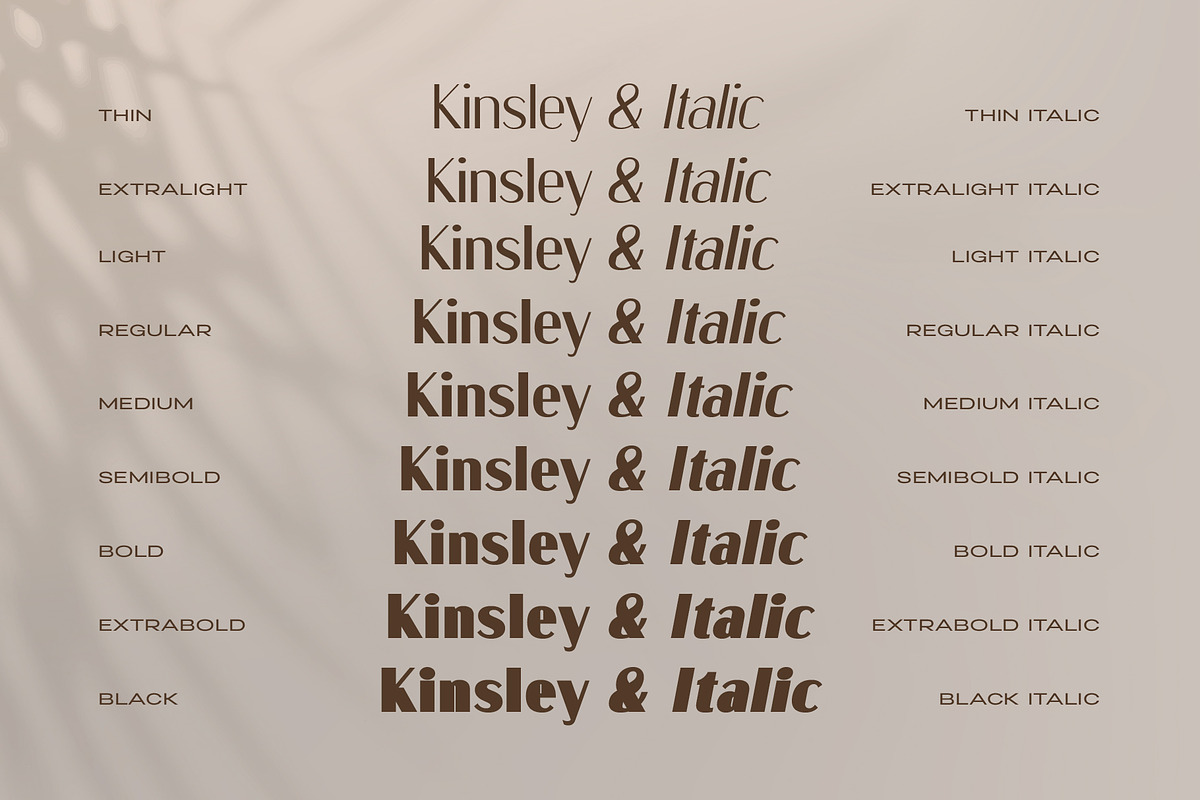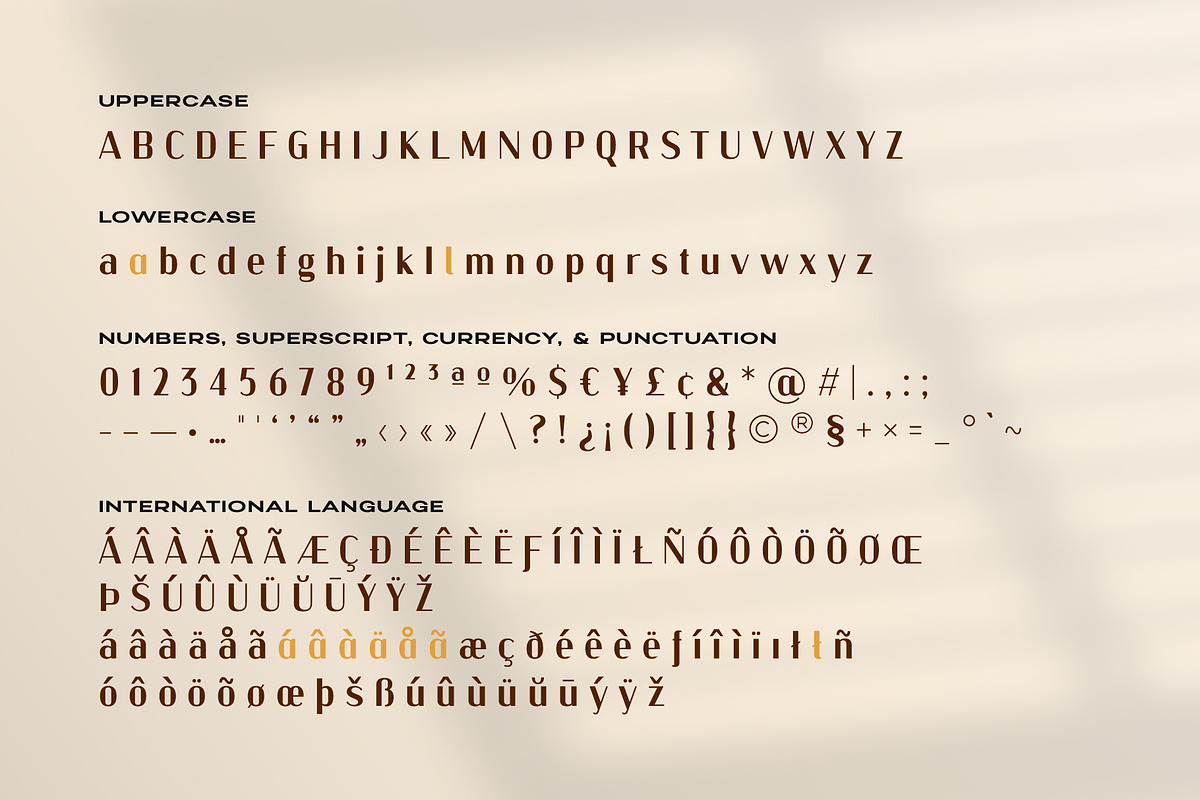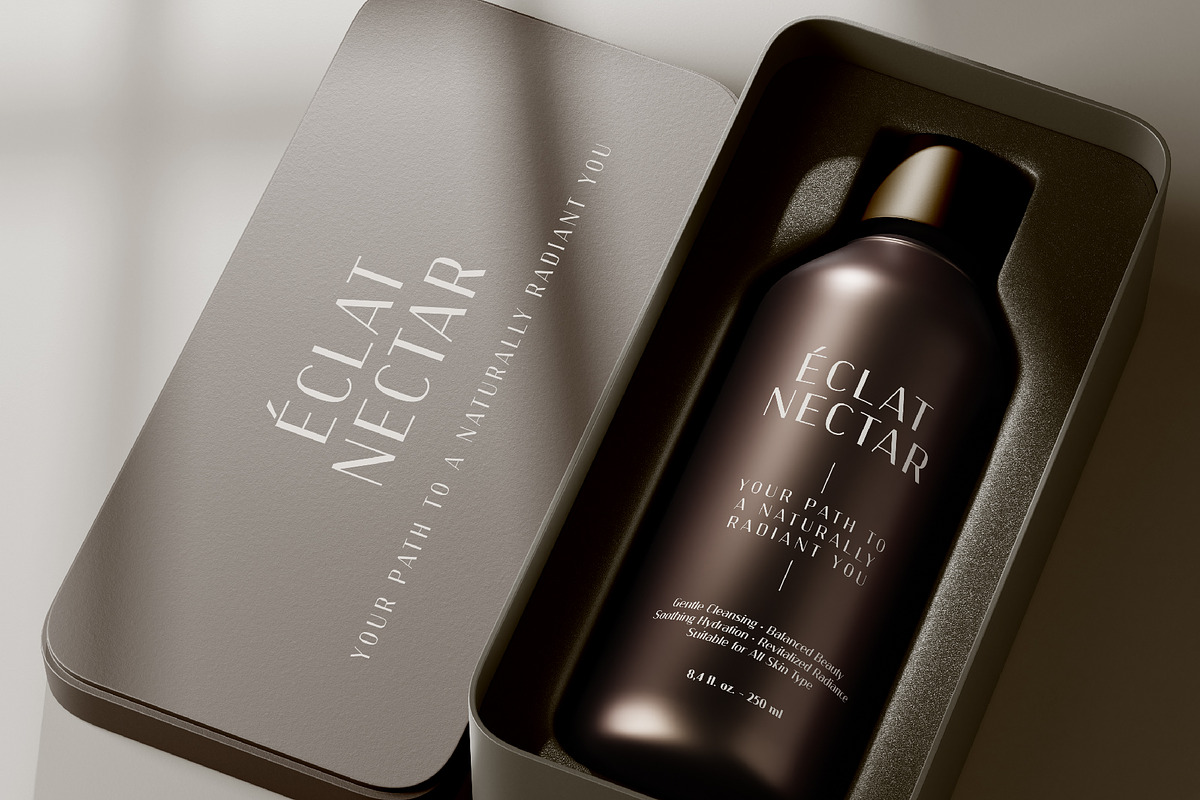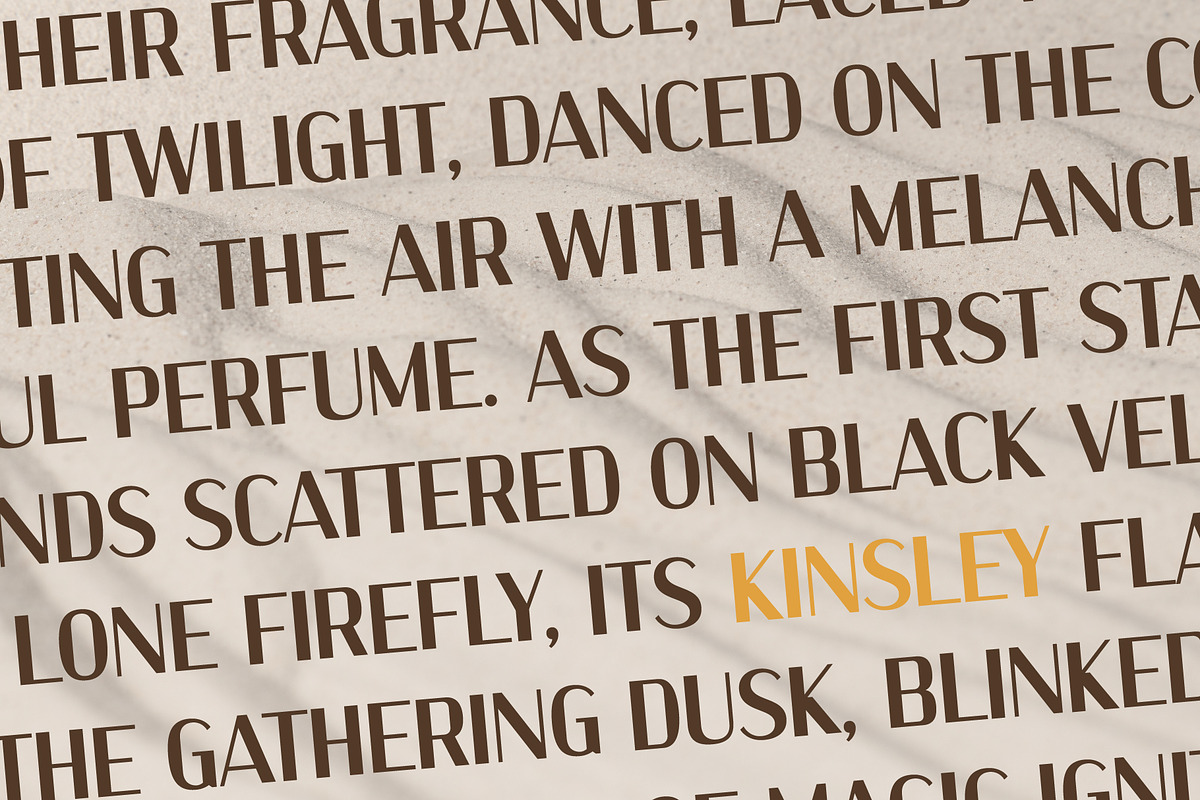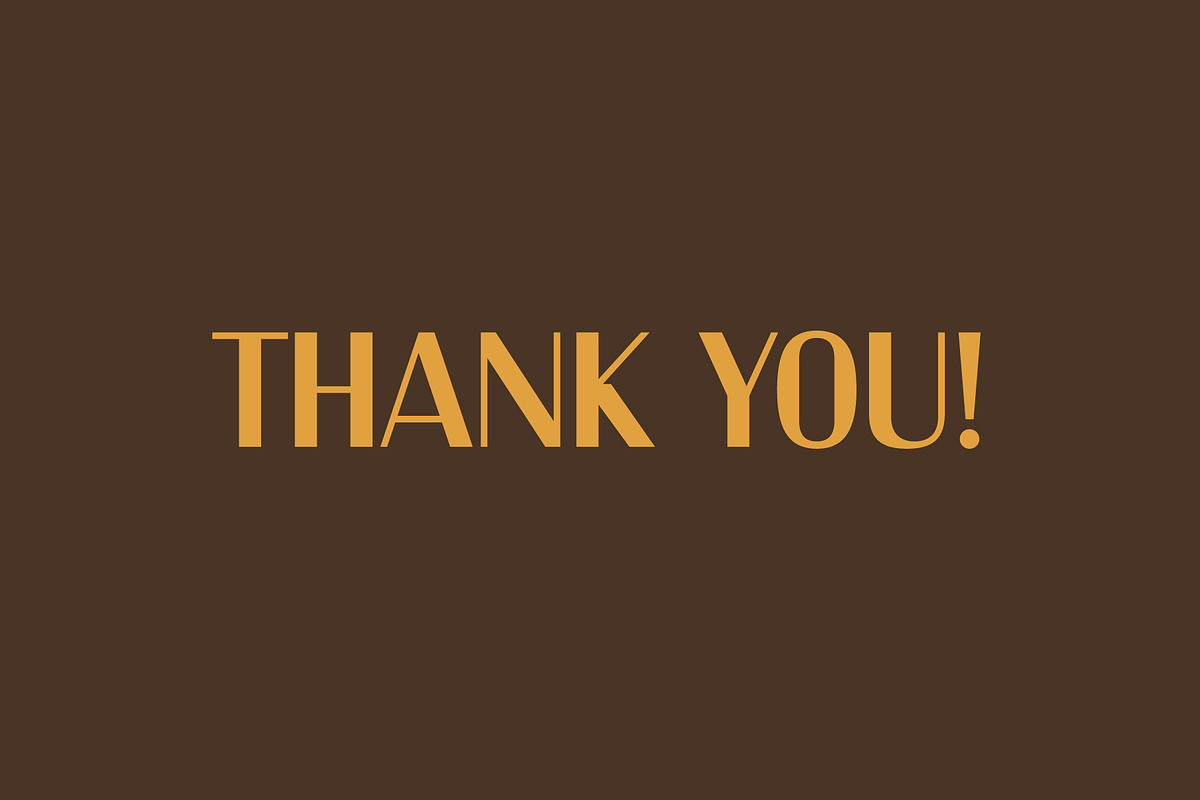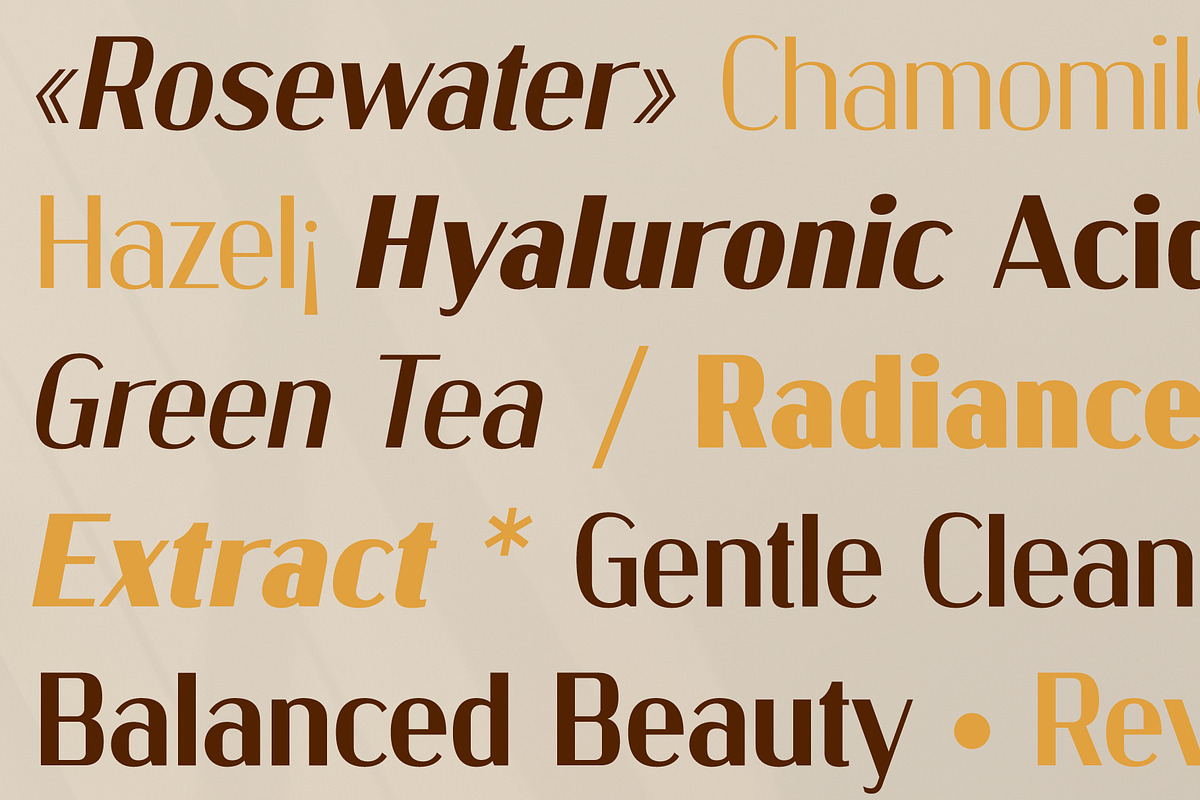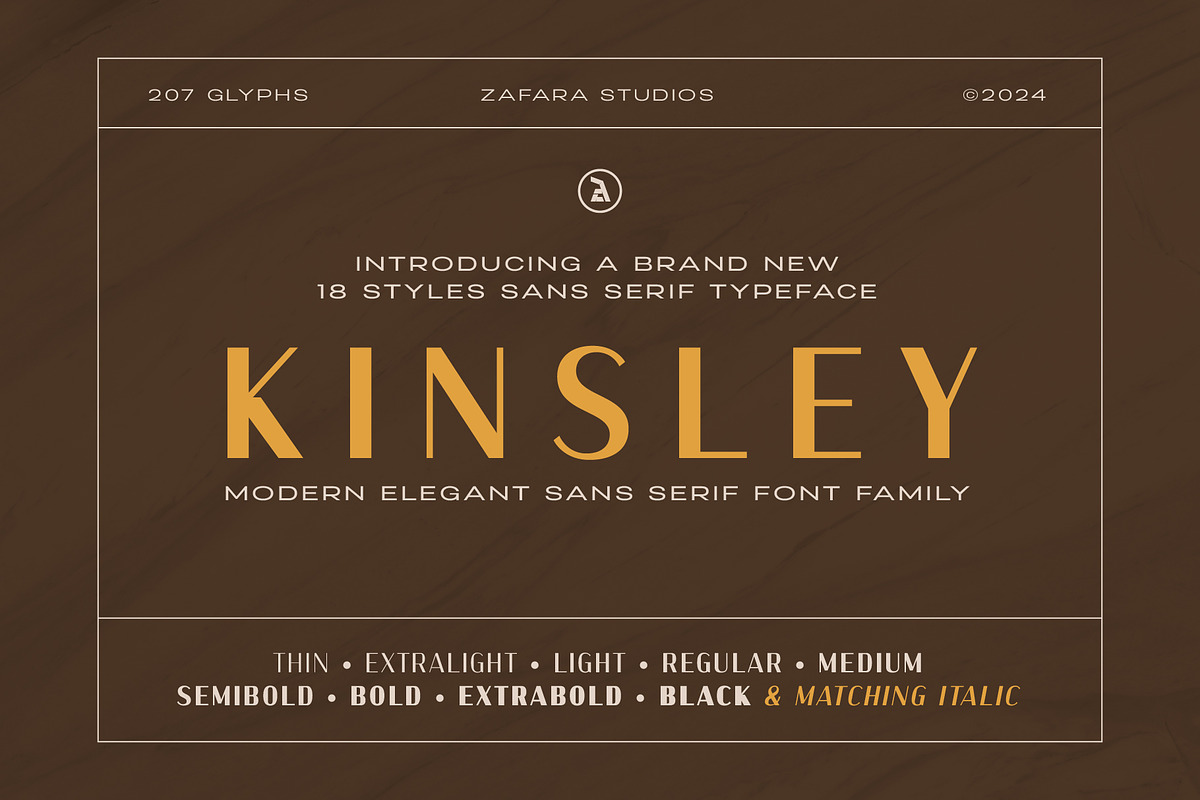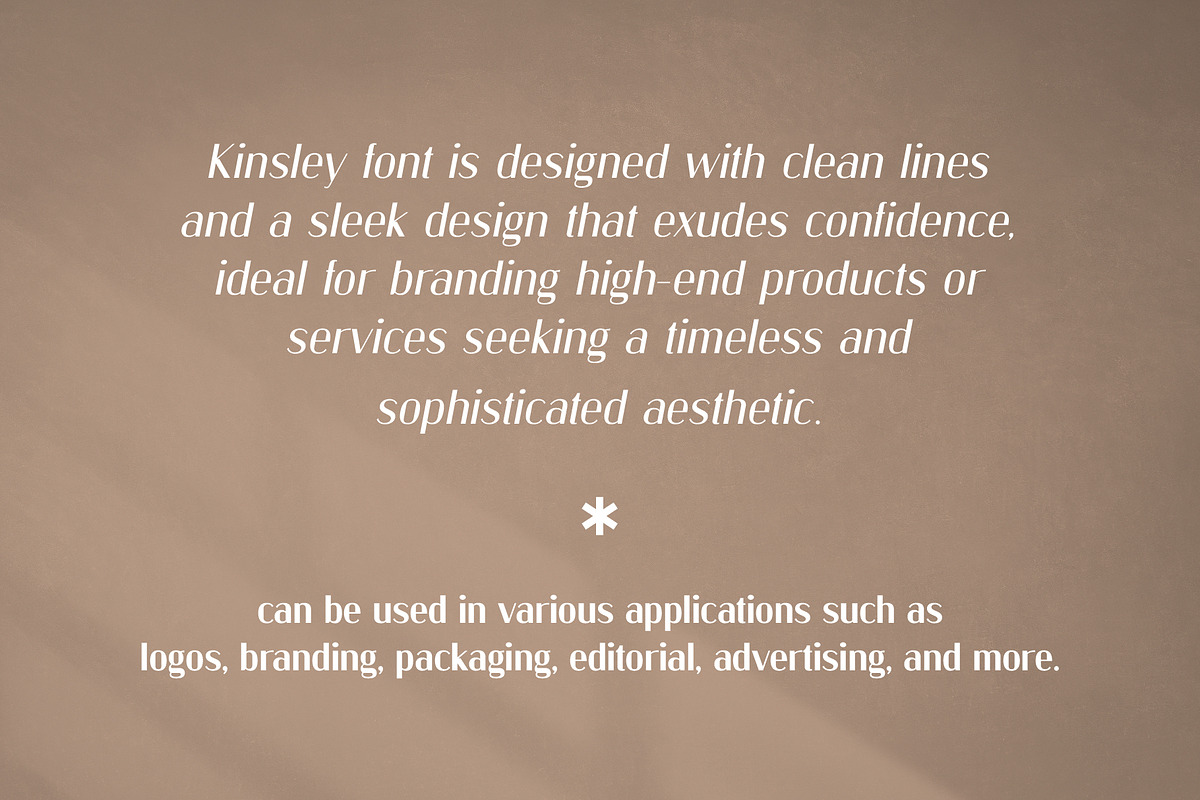
Kinsley - Modern Elegant Sans Serif
Kinsley font is designed with clean lines and a sleek design that exudes confidence, ideal for branding high-end products or services seeking a timeless and sophisticated aesthetic. Kinsley font can be used in various applications such as logos, branding, packaging, editorial, advertising, and more.
- 214 glyphs: uppercase, lowercase, stylistic, multilingual, numbers, punctuation
- 9 weight: thin, extralight, light, regular, medium, semibold, bold, extrabold, black
- 9 italics